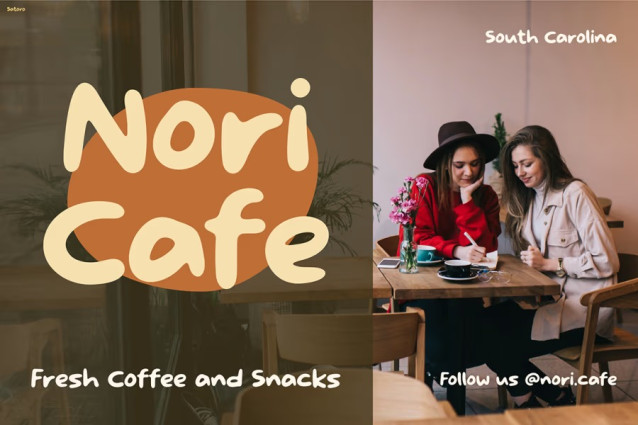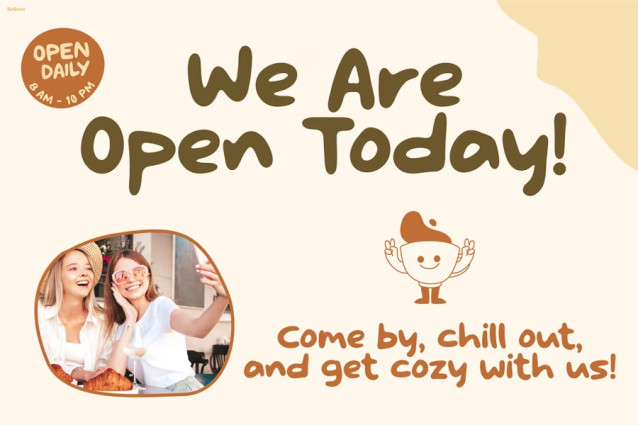
Satoro Font
Satoro Font a warm, soft-flowing handwritten style that instantly brings comfort and approachability to any visual project. This font stands out because its strokes feel naturally youthful—smooth curves, rounded terminals, and gentle energy that looks friendly without losing clarity. The aesthetic blends a café-style handwriting vibe with modern branding softness, making it perfect for visuals that want to feel inviting, casual, and emotionally warm.
The preview images highlight the font’s charming personality: cozy café menus, warm social quotes, soft product labels, and youthful lifestyle promotions. Every letter glides with balanced spacing, giving your designs a clean yet handcrafted look. Whether displayed in large titles or shorter captions, Satoro remains easy to read while maintaining its playful, hugging-style visual identity.
Its versatility shines in both light and dark scenes, as shown in the previews. From “Daily Chill Set” to “Warm Cups Warm People,” the font adapts beautifully—making ordinary layouts feel more intimate, friendly, and full of life. If you’re aiming for designs that feel local, human, and emotionally engaging, Satoro brings the exact softness you need.